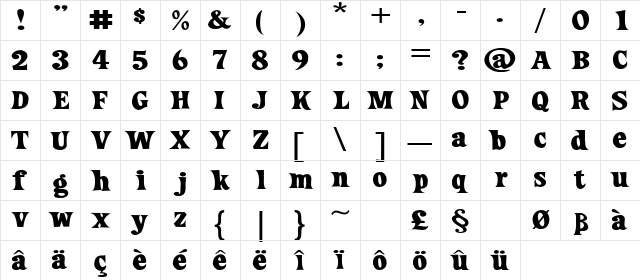
Loose New Roman Wide Regular
Design Context for Loose New Roman Wide Typeface
Loose New Roman Wide is a composed and adaptable typeface that performs quietly and consistently across a wide range of design contexts.
Pro Tip: Pair Loose New Roman Wide with a font of contrasting weight or personality to build a more expressive typographic hierarchy.